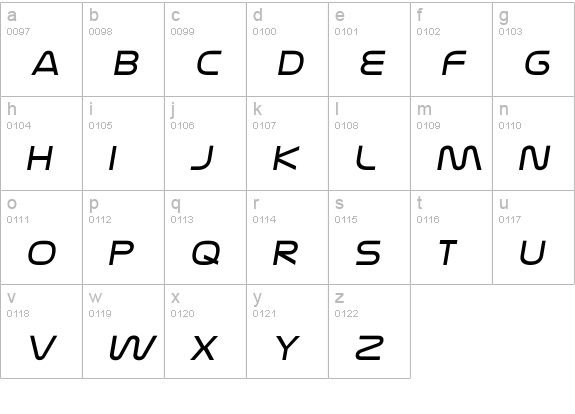
Nasalization Extended Light Italic Font Details
Nasalization Extended Light Italic is a refined, elegant, extended-width, italic variant in the Nasalization typeface family \xE2\x80\x94 well suited to elegant body text, refined sub-headings, and luxury branding.
Nasalization Extended Light Italic font is a sleek and modern typeface that exudes elegance and sophistication. With its stylish slanted design and clean lines, this font is perfect for adding a touch of sophistication to any design project. The light weight of the font lends a subtle and airy quality to the text, making it ideal for use in branding, advertising, and editorial design. Best of all, Nasalization Extended Light Italic font is available for free download at FontsMarket.com. This means you can easily access and use this beautiful font in your projects without any cost. Whether you're designing a website, creating a poster, or crafting a logo, Nasalization Extended Light Italic font is sure to elevate your design with its refined aesthetic and effortless charm. Download it today and add a touch of elegance to your creations.